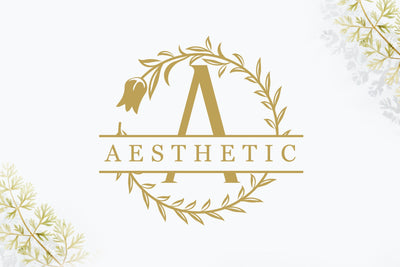
Aesthetic Monogram
Aesthetic Monogram is a very elegant and simple decorative font. Add it for its aesthetics to an endless work of art. And use it to create beautiful wedding invitations, beautiful stationary art, interesting social media posts, and cute greeting cards, cute stickers. beautiful.